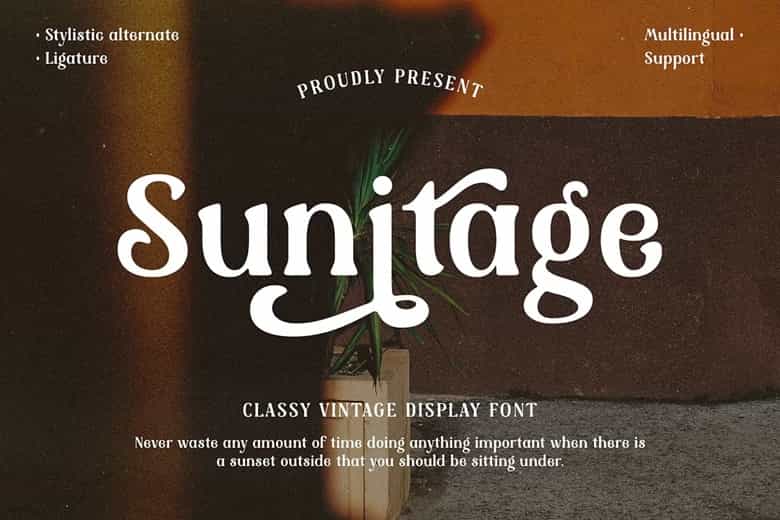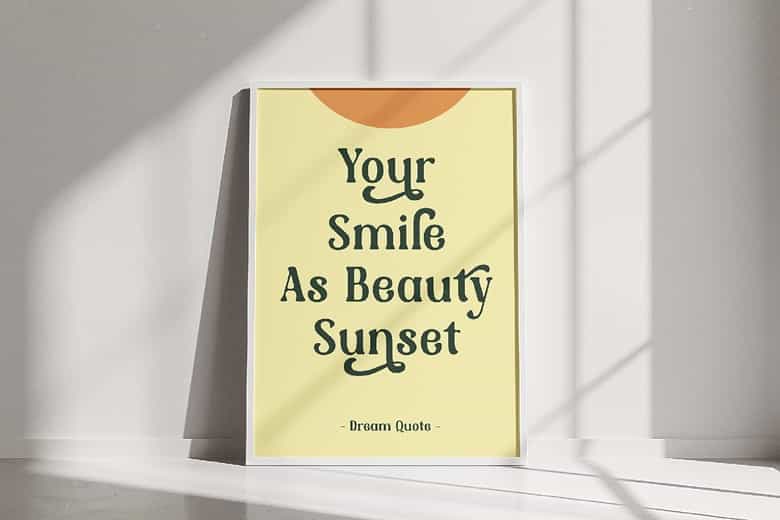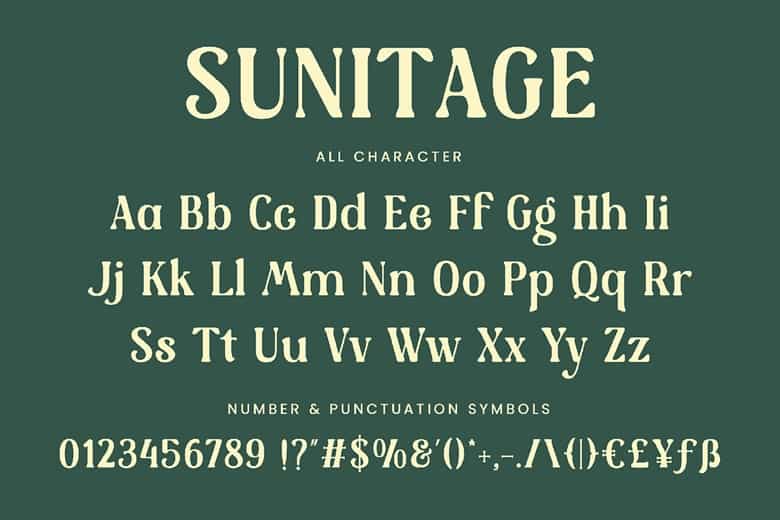
Sunitage is a classy vintage display serif font. It has a lowercase, uppercase, symbol, and also supports multiple languages. This font has a lot of ligature. Sunitage font also includes ligatures, stylistic alternates and many more. This font suitable for fashion, branding, catalog and other design that you want.